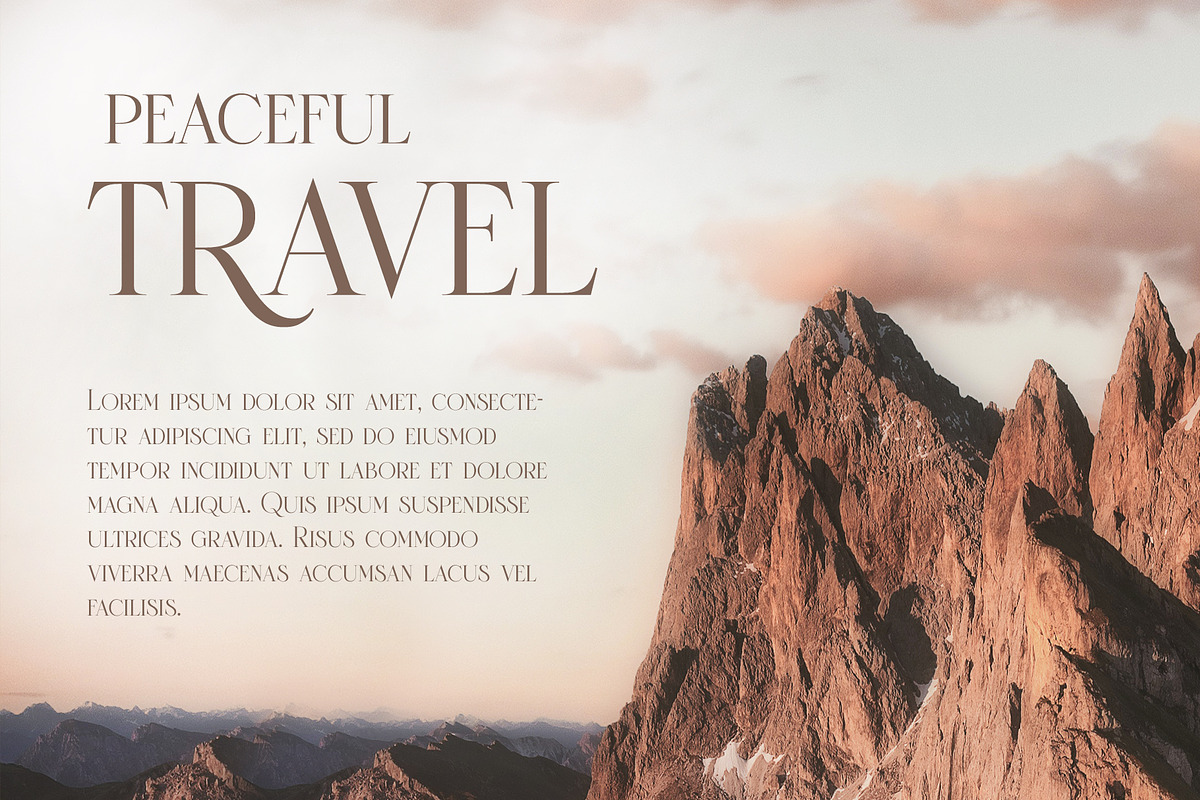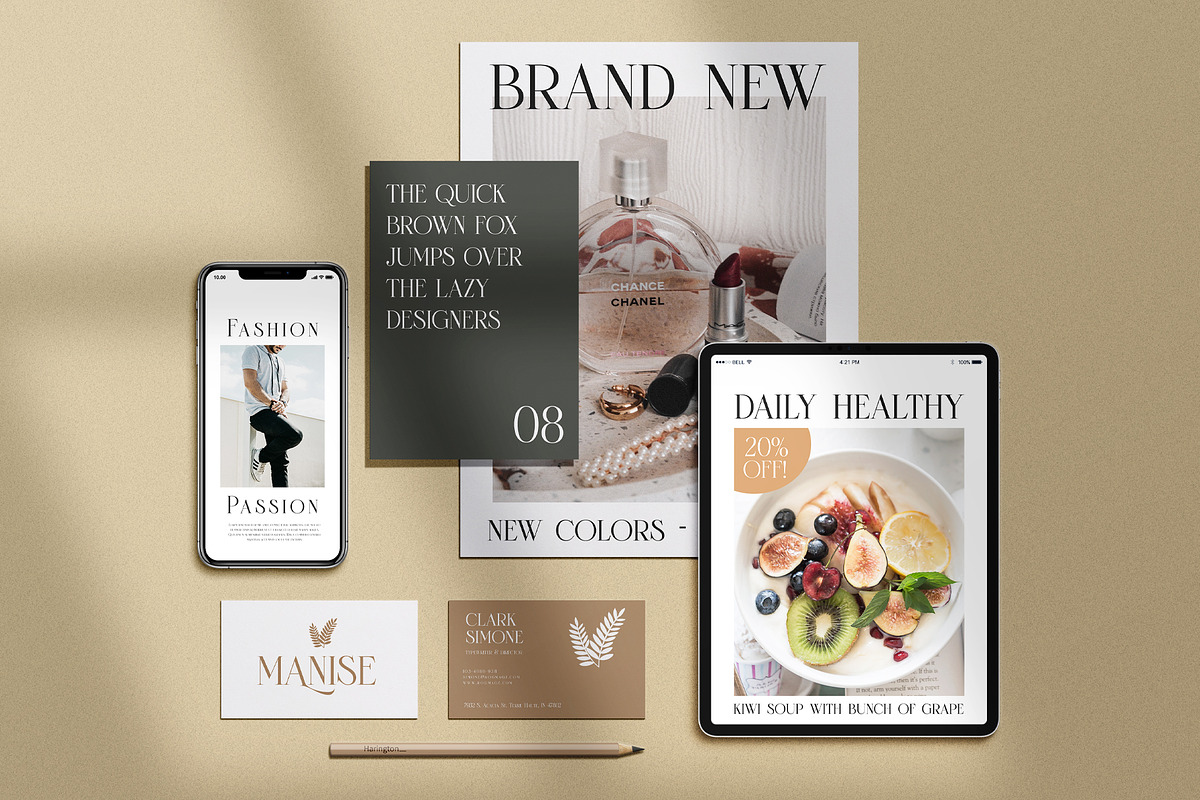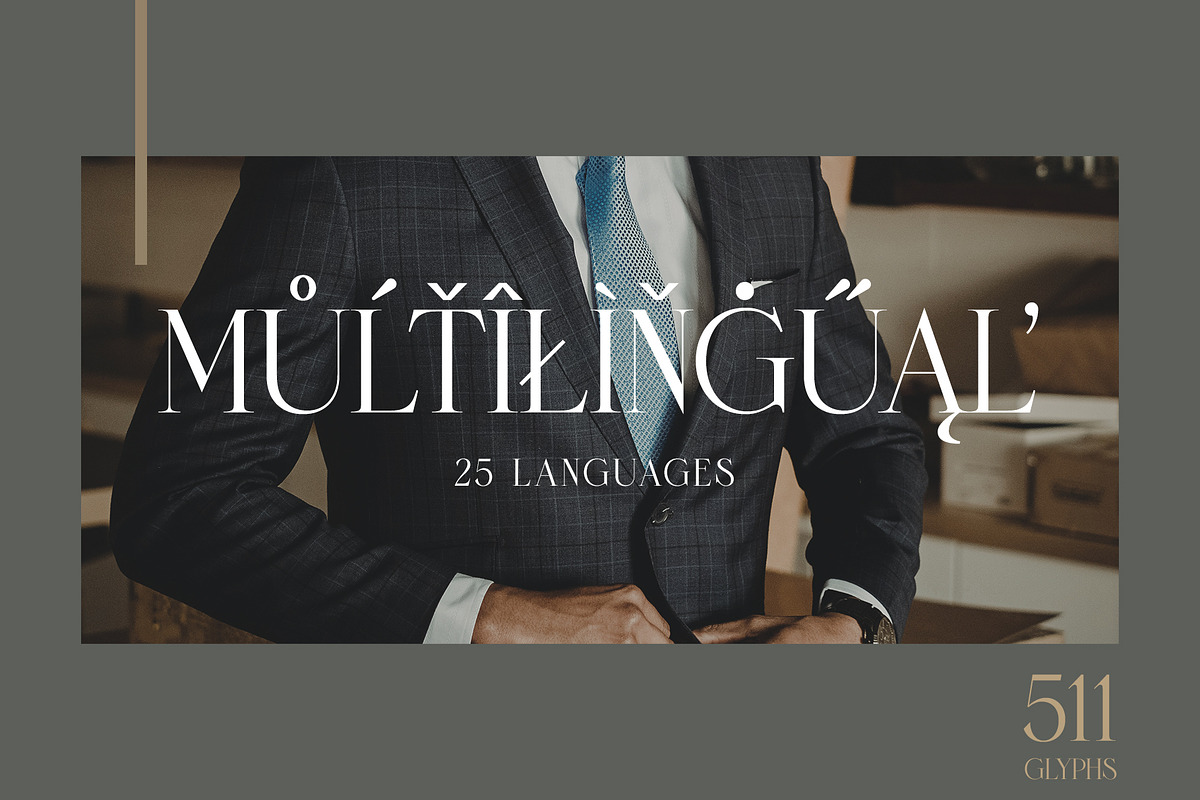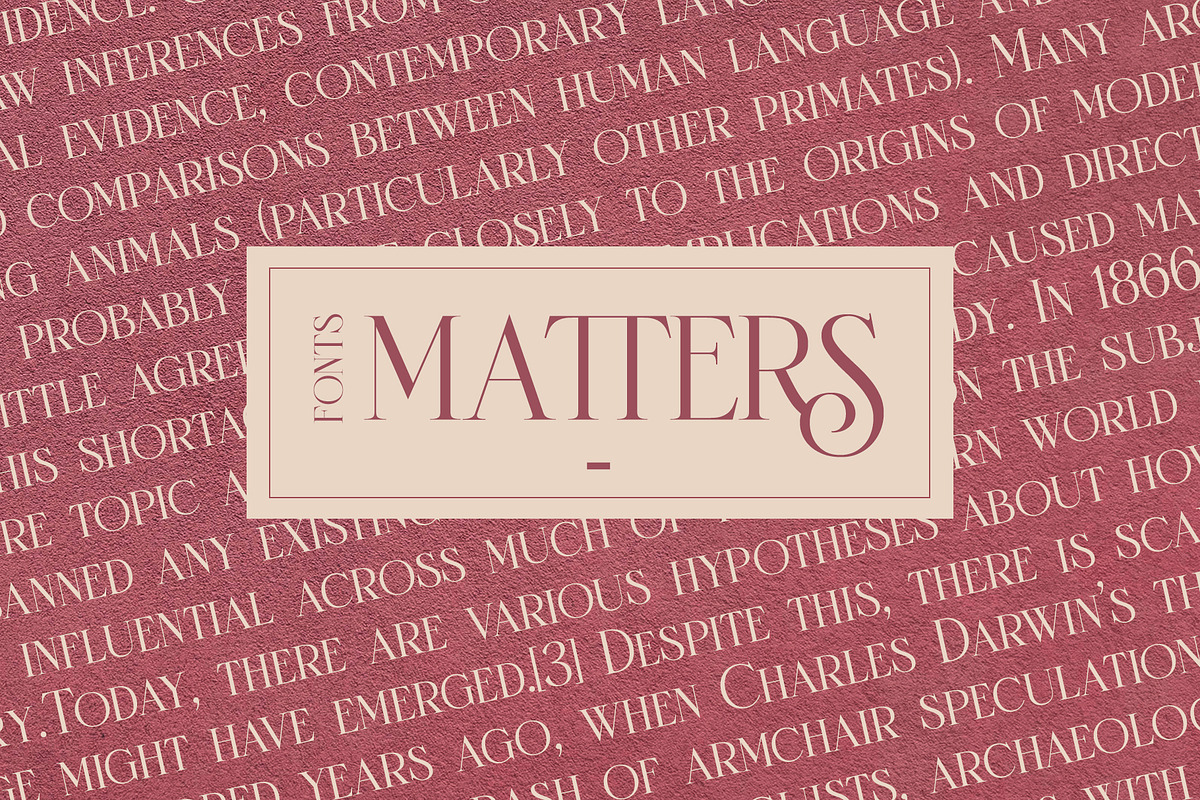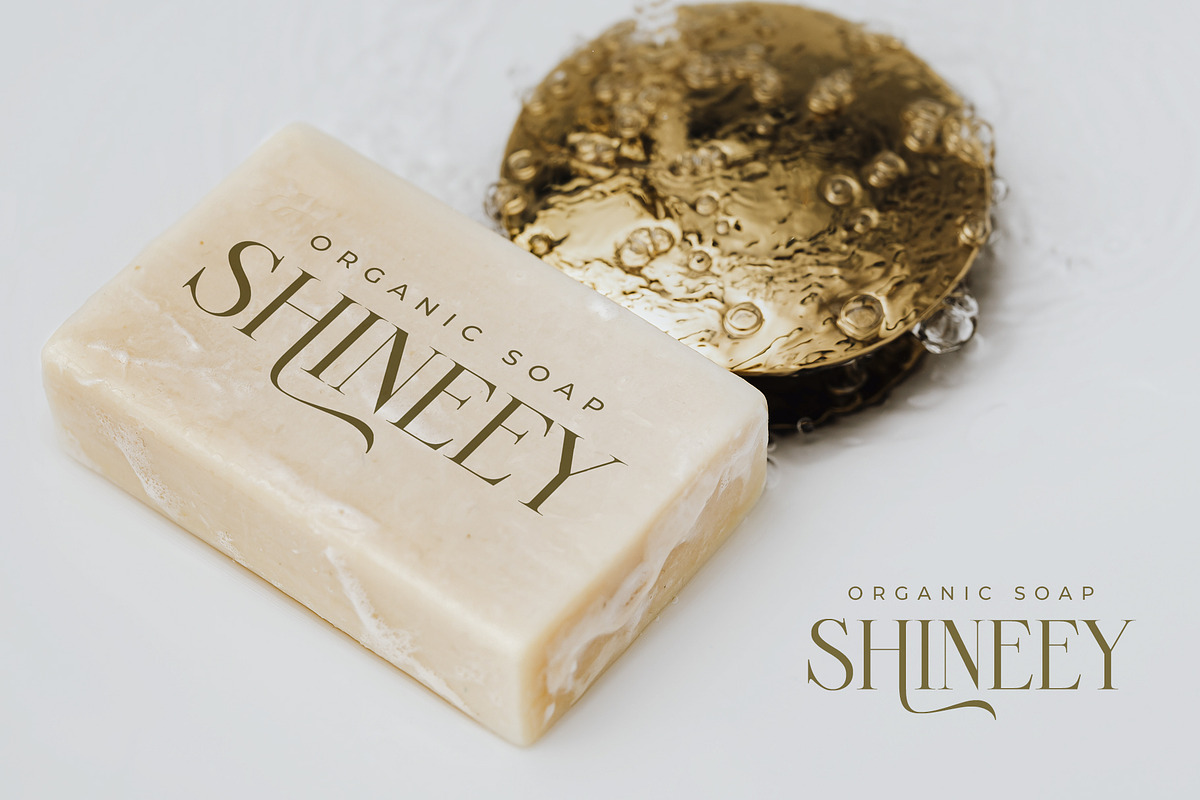
Novante | Display Serif
Novante is a luxury display serif. The beautifully smooth and elegant typeface with the high contrast of the letterforms that represents the glamour and majestic. Inspired by the luxurious Art Deco and modern minimalist of the design trends.
Novante is an All-caps font equipped with lots of stylish ligatures and classy alternates that you can mix and match to get the elegant typographic looks. This versatile font can be used for branding, logo, logotype, label, quotes, magazines, cards, or short body text.
Font Featured :
- Small-caps
- Punctuations
- Accents (26 languages)
- Sylistic alternates
- Stylistic set 01-04
- Discretionary Ligatures